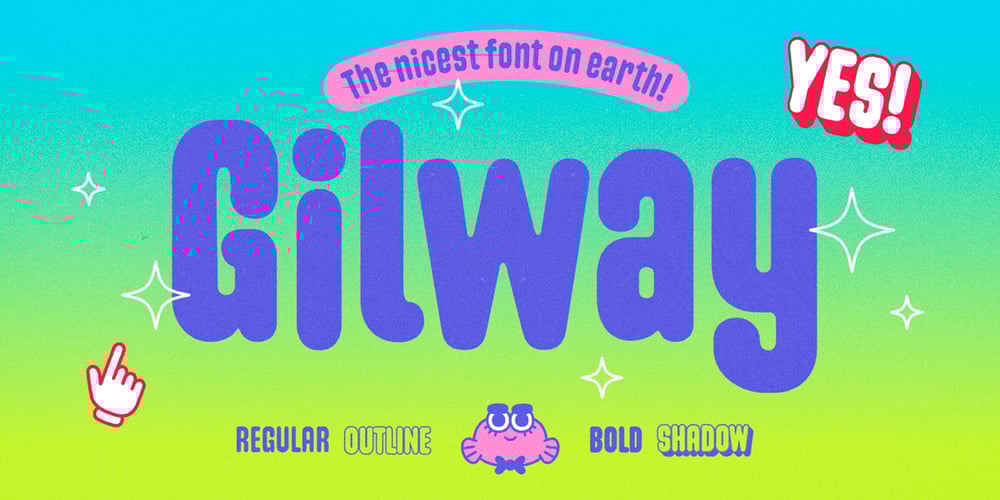
Gilway Font Family was designed by Art Grootfontein and published by Art Grootfontein. Gilway contains 4 styles and family package options. Gilway is a playful, rounded display with tons of personality.This versatile typeface is inspired by the earliest examples of rounded types from the 19th century, such as Caslon Rounded (1836) and Schmale Runde Grotesk (1885).Gilway has a distinctive hand-lettered feel because of its subtle variances, which make it powerful and impactful yet incredibly friendly.Layered options allow you to combine the various styles, and a unique Opentype feature makes your letters dance! To take full advantage of Gilway’s features, please download this one-sheet pdf file.Please take a look at this video demo to see Gilway family in action !Gilway’s design is suited for a wide range of uses, including headlines, displays, packaging and logotypes.